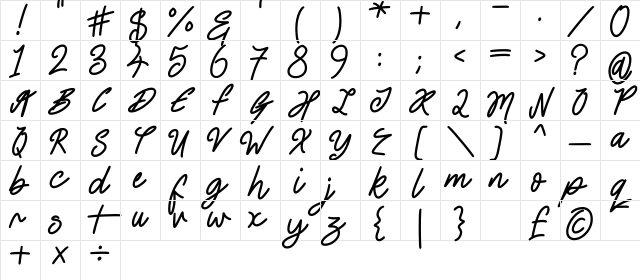
Monopoly Bank Regular
Foundry: JSH creates
Designer: Jonathan S. Harris
Design Context for Monopoly Bank
Monopoly Bank uses fixed-width spacing throughout, giving it the structured, systematic character associated with coding environments and technical documentation.
Pro Tip: Use Monopoly Bank with slightly increased line-height for extended reading - fixed-width spacing can feel dense in longer passages without extra breathing room.